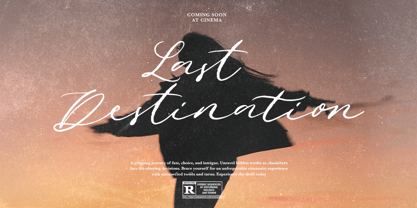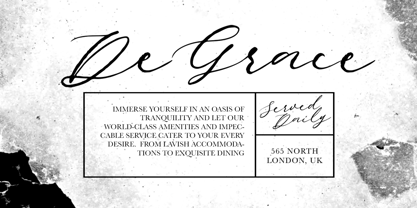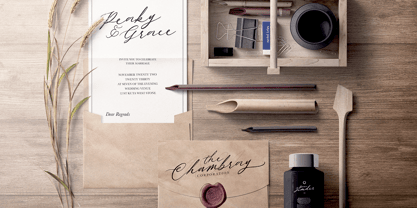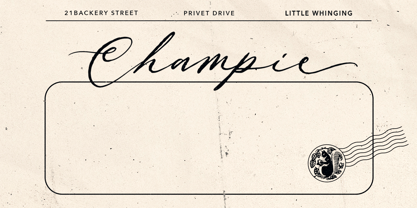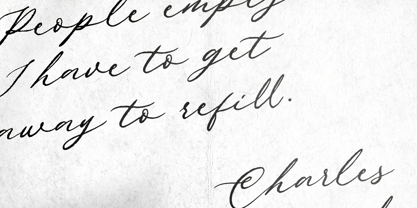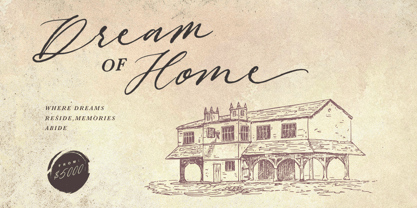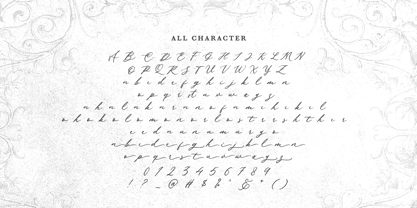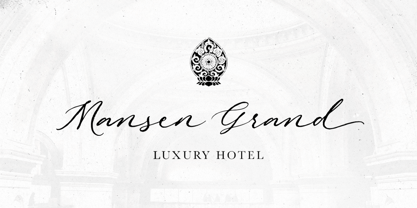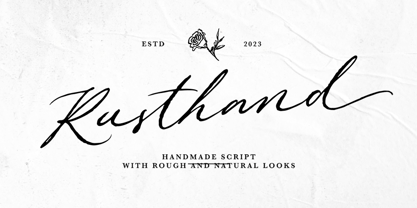
Rusthand
The Rusthand Font Family was designed by Sarid Ezra, Dzikrul Aulia and published by Bale Type. Rusthand contains 1 styles.
Rusthand is a handmade script with natural and rough looks. Comes with ligatures and end alternate, this font will make your presentation looks more organic and natural. You can use this font for logotype, wedding invitations, or even aesthetic quotes. This font also support multi language!
Rusthand